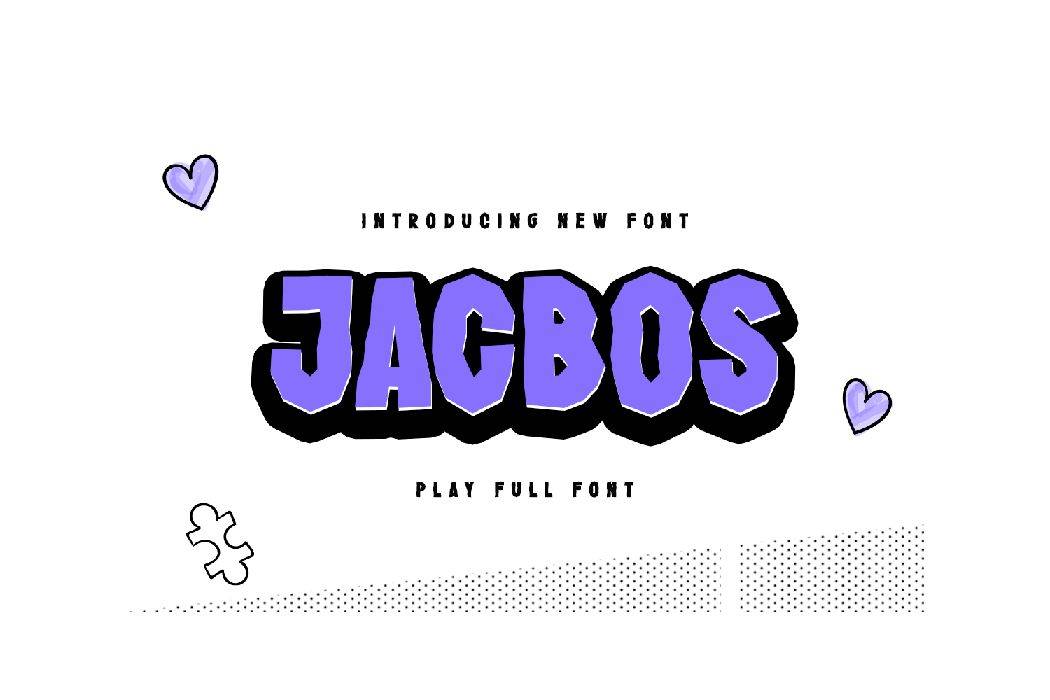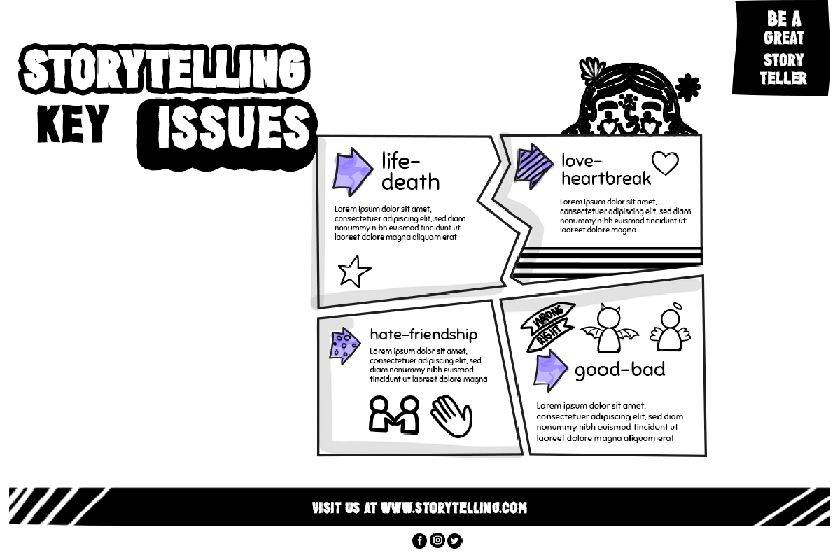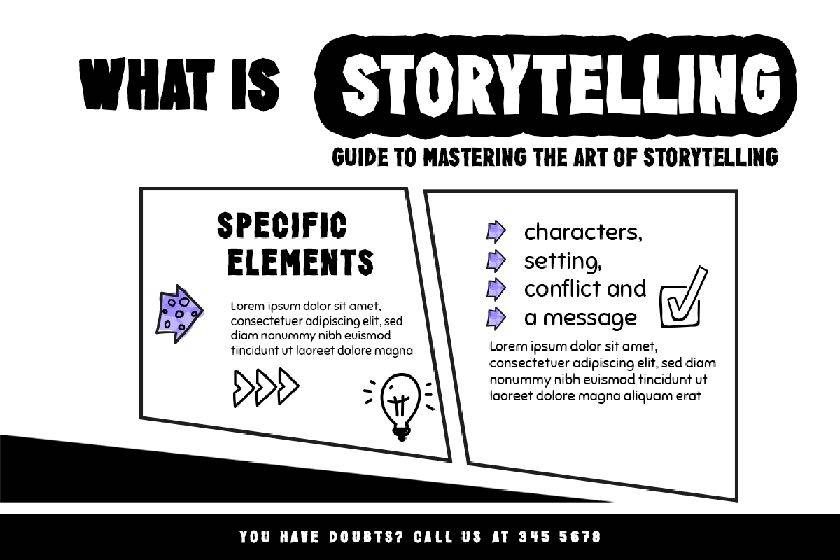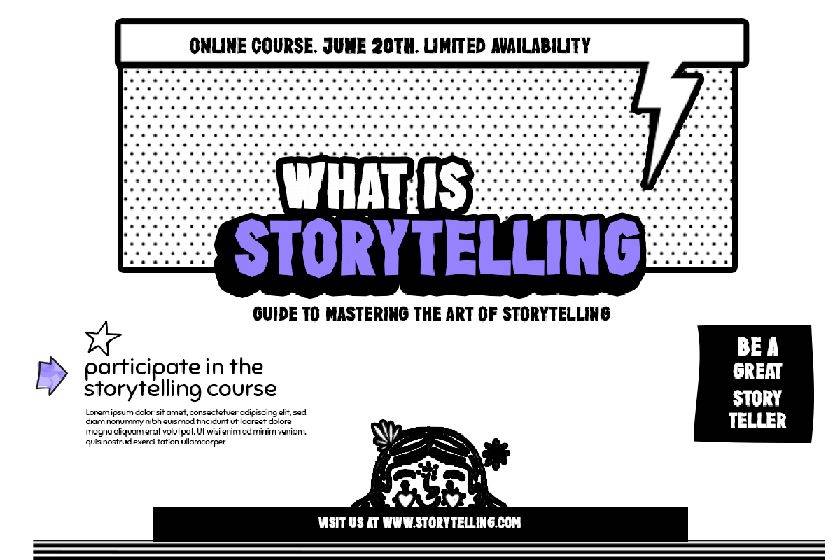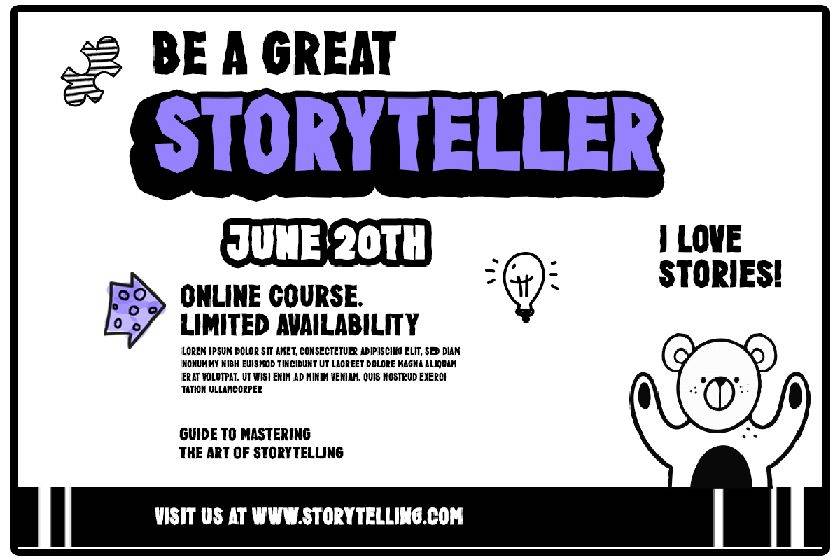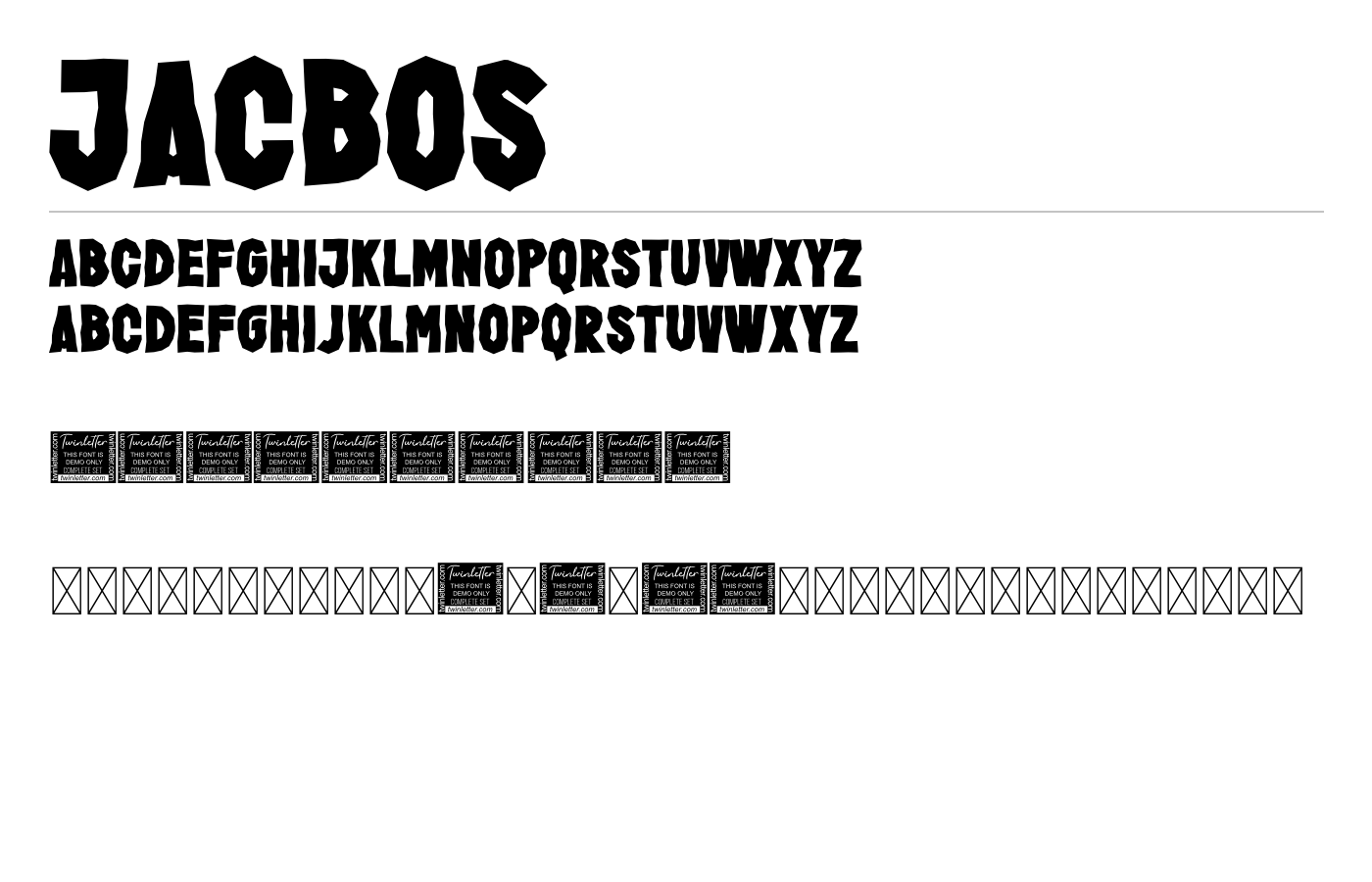
Jacbos is a bold, condensed sans serif font with rough, irregular edges that give it a hand-crafted, playful feel. Its strong, quirky shapes make it ideal for eye-catching headlines, posters, and branding that aims to stand out with a casual, artistic vibe. This font works best in creative and informal contexts where uniqueness and personality are key.
Jacbos Font
About Jacbos Font